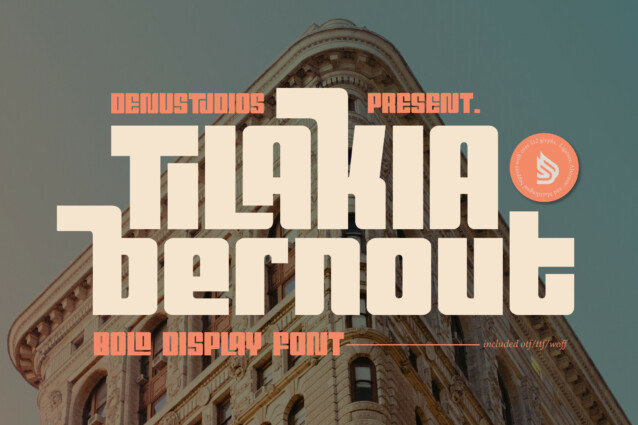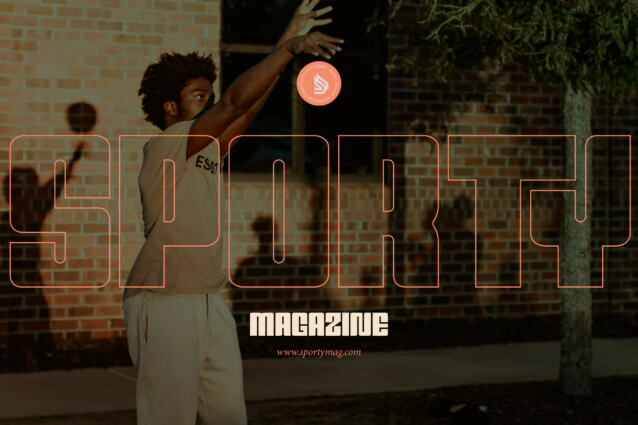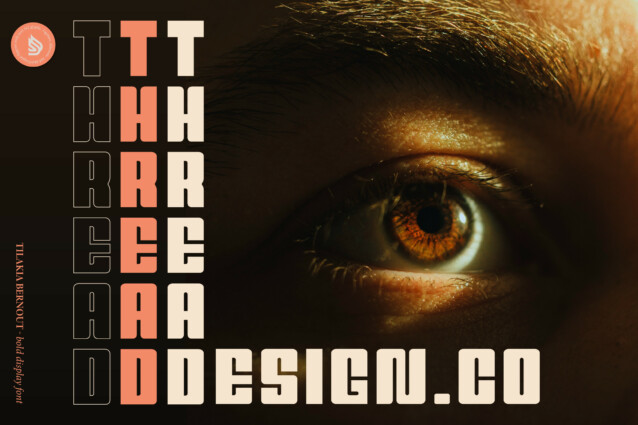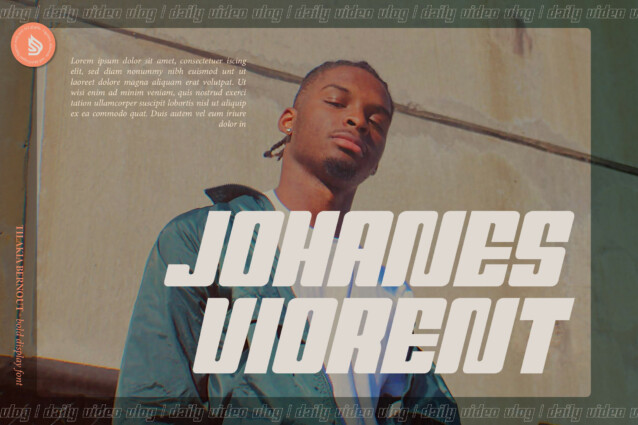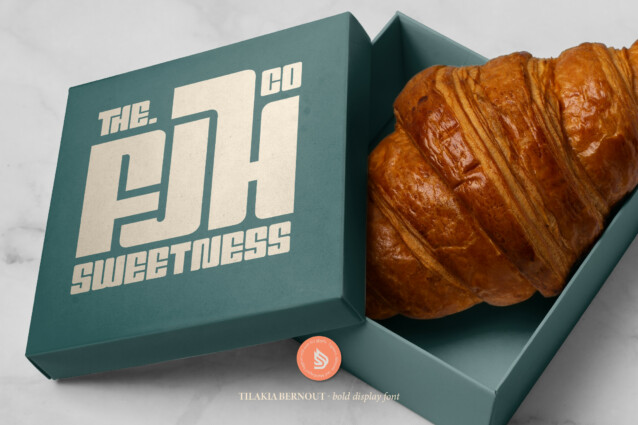
Tilakia Bernout Font
Tilakia Bernout Font is suitable for any projects such as: logos, branding projects, homeware designs, product packaging, mugs, quotes, posters, shopping bags, t-shirts, book covers, name card, invitation cards, greeting cards, label, photography, watermark, special events, and all your other lovely projects that need a Bold Display Font taste.